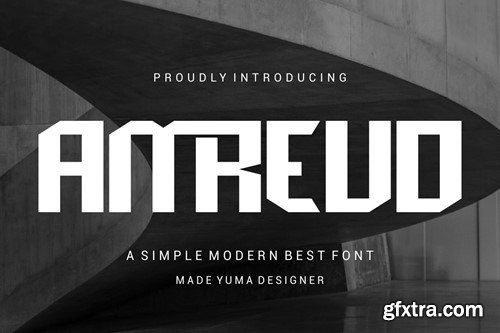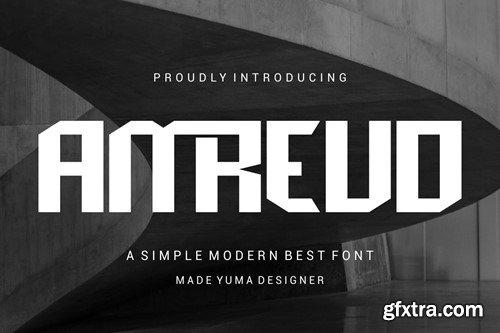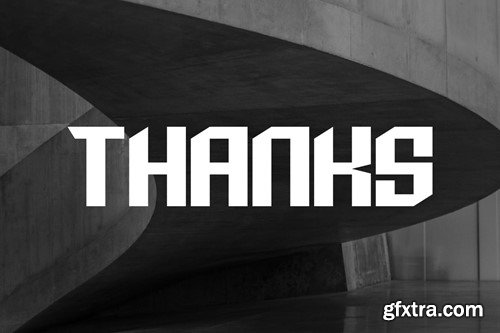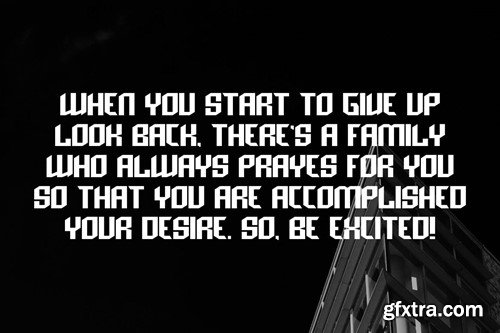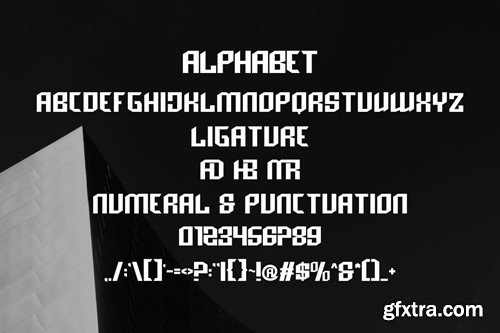
阿梅鲁德 - 简洁无衬线字体 X2SHVRW
Amreud - Logotype Display Font
Introducing Amreud Modern Sans Serif. Amreud is a modern and simple font, best used as a display for headings, logos, branding, magazines, product packaging and invitations. Amreud come with clean lines and smooth curves give any project an extra touch of class. What you get: Thank you.